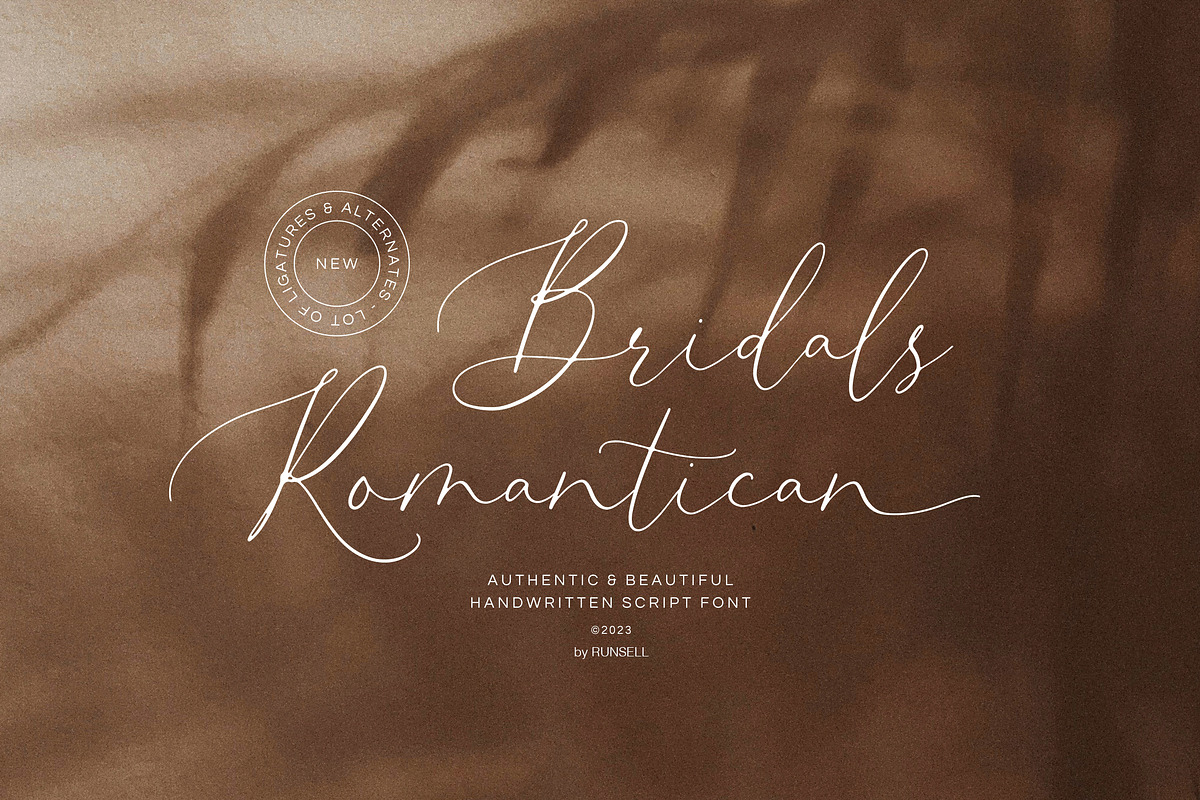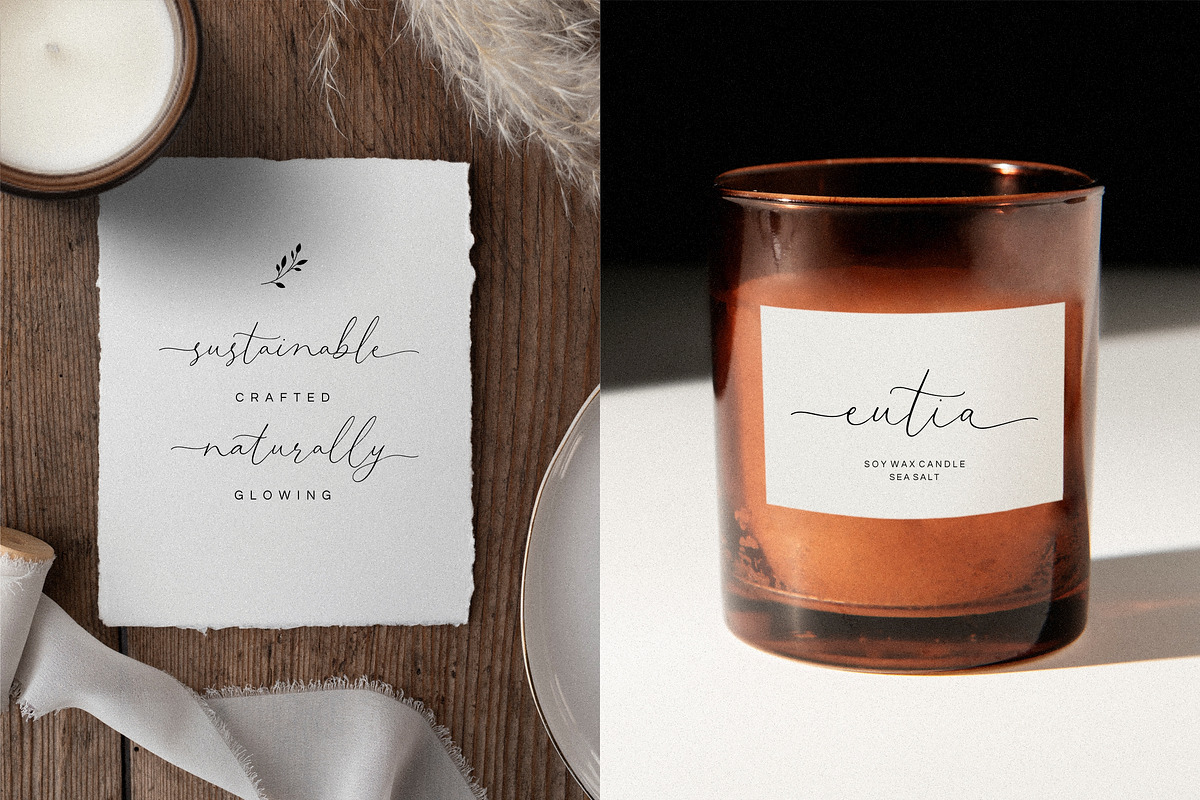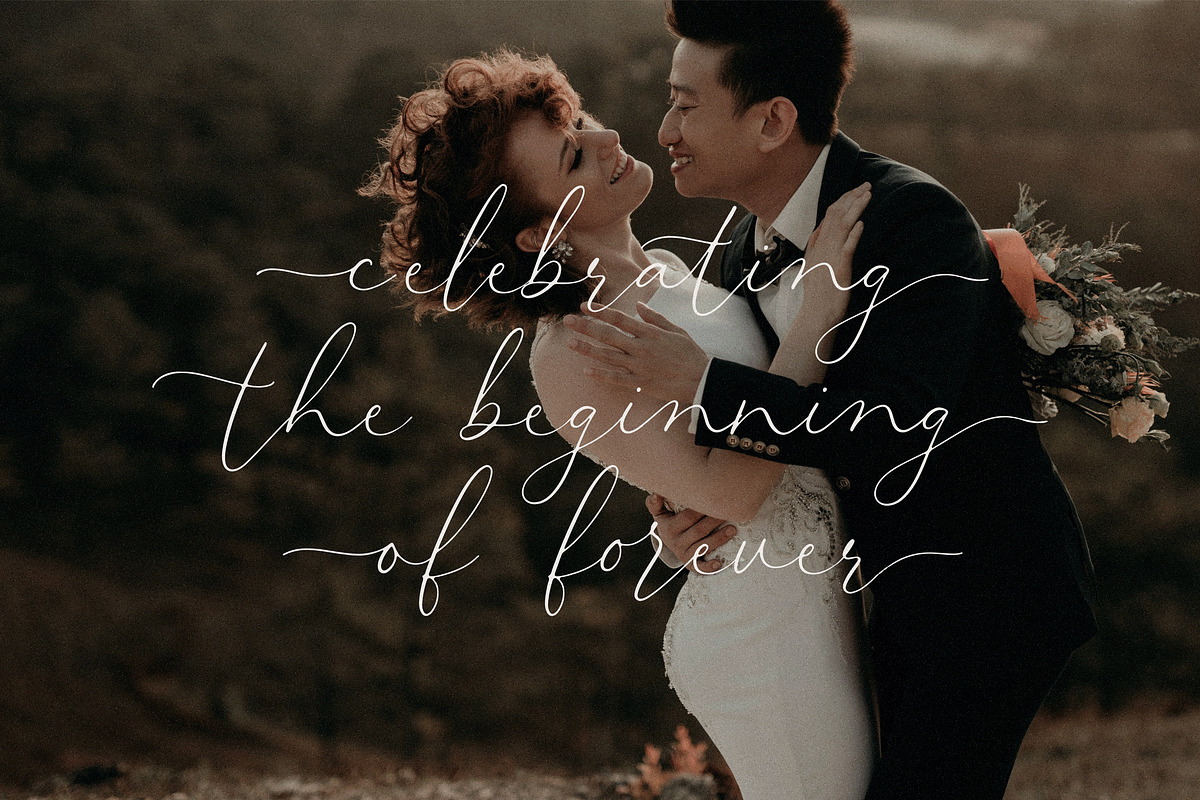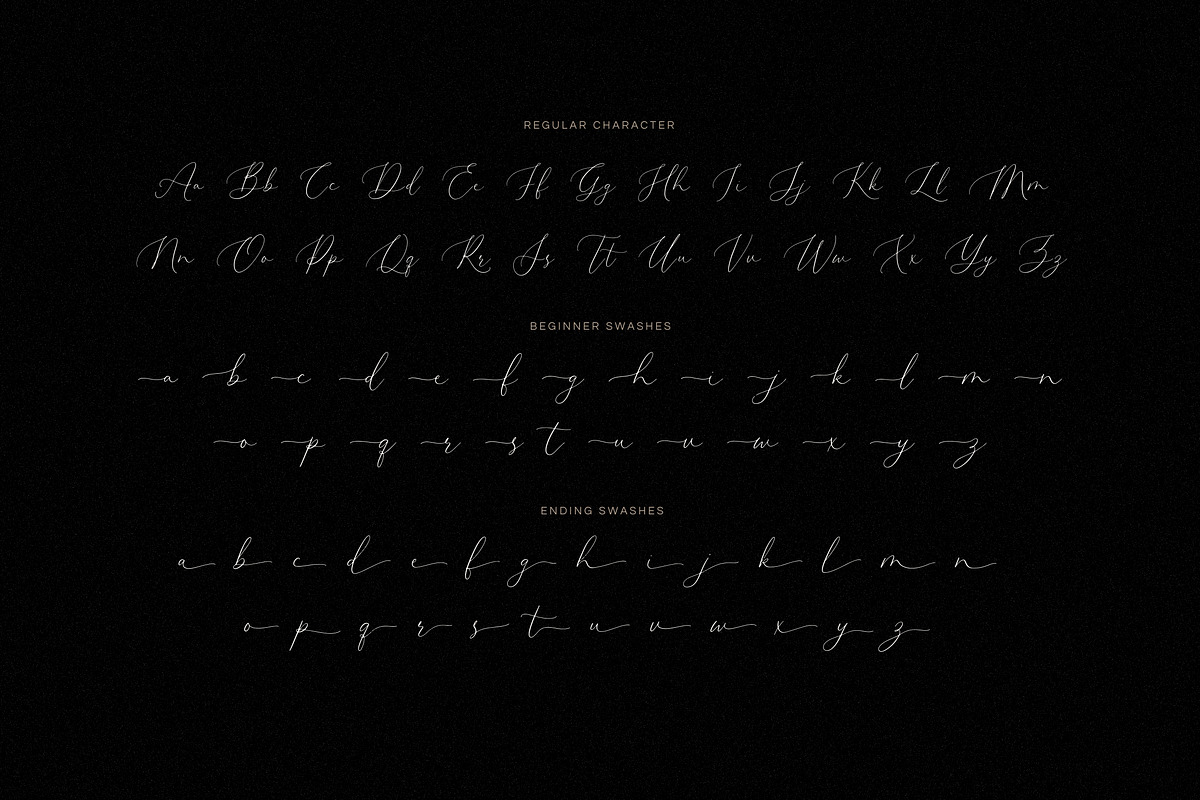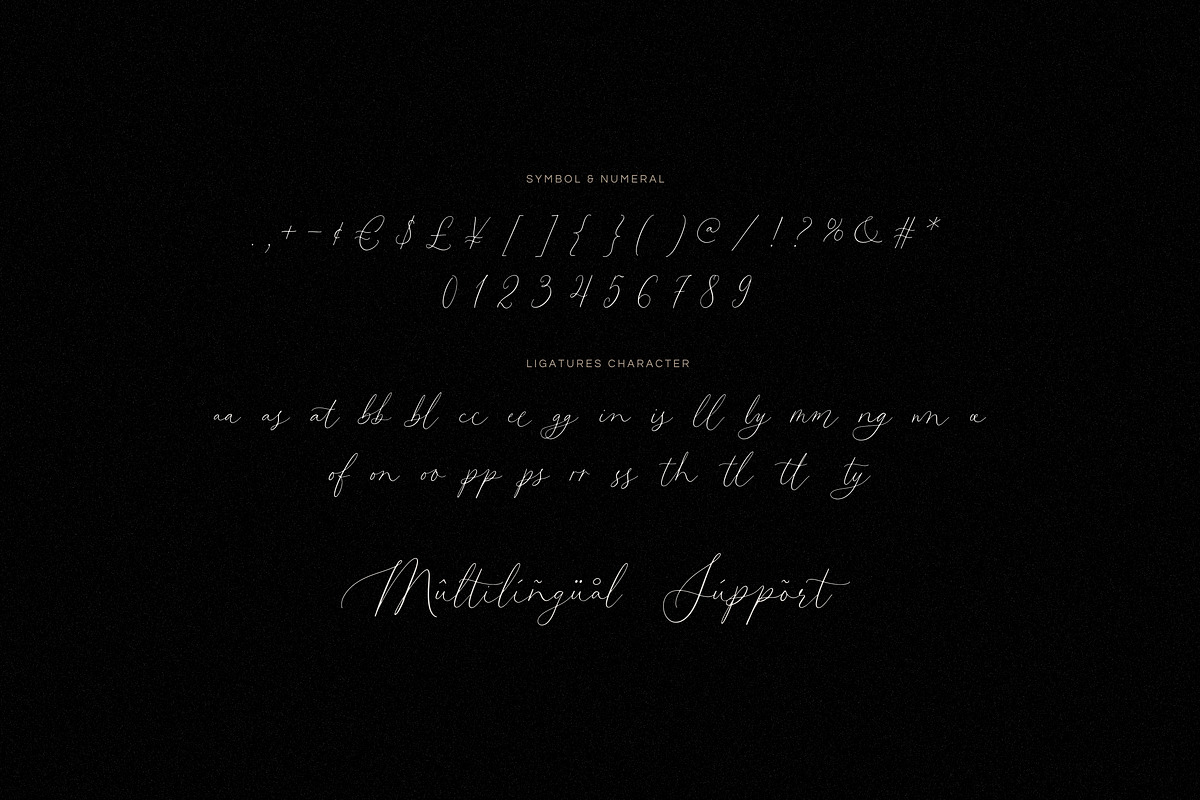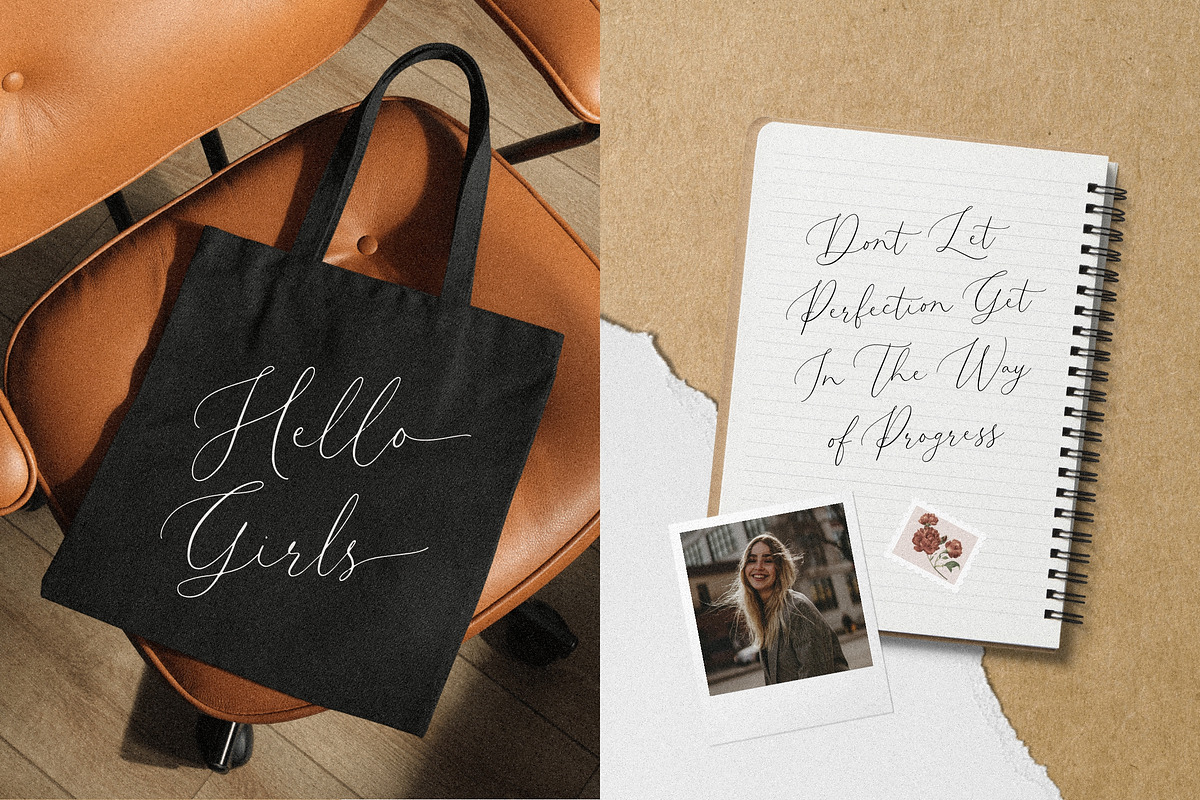
Bridals Romantican - Handwritten
Bridals Romantican - Handwritten Script Font
Bridals Romantican is an elegant, authentic handwritten script font, ideal for creating romantic and sophisticated designs. This beautiful typeface is perfect for wedding invitations, branding, packaging, and more. With its flowing, natural strokes, it adds a touch of charm and refinement to any project.
- Ligatures & Alternates: Includes a variety of alternate characters and unique ligatures to help customize your design, providing flexibility and creativity.
- Stylish & Versatile: Perfect for upscale branding, logos, wedding stationery, social media graphics, and elegant product packaging.
- Timeless Appeal: Its script style effortlessly blends classic elegance with modern sophistication.
Elevate your designs with Bridals Romantican, where romance meets creativity.